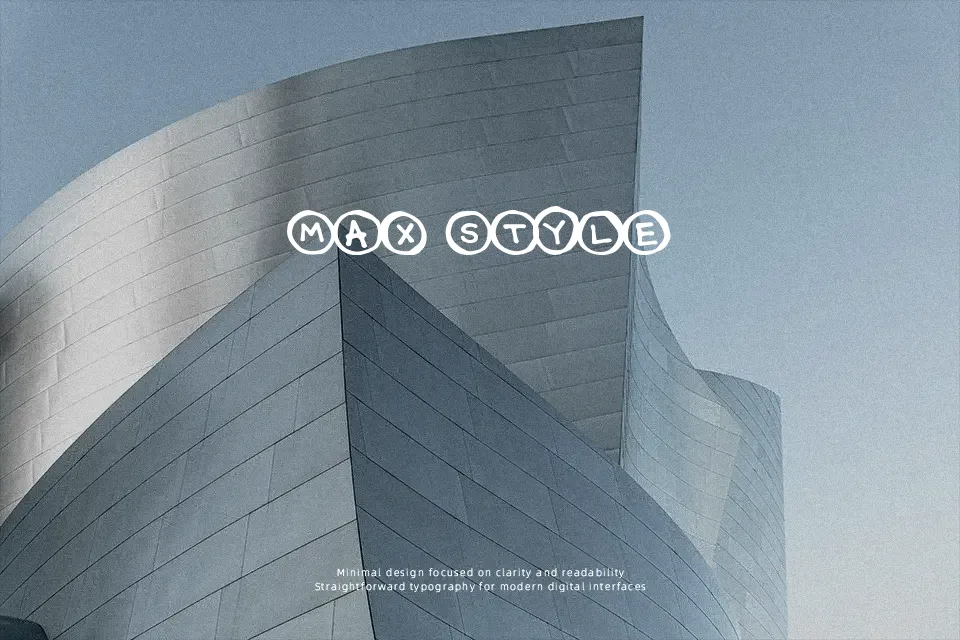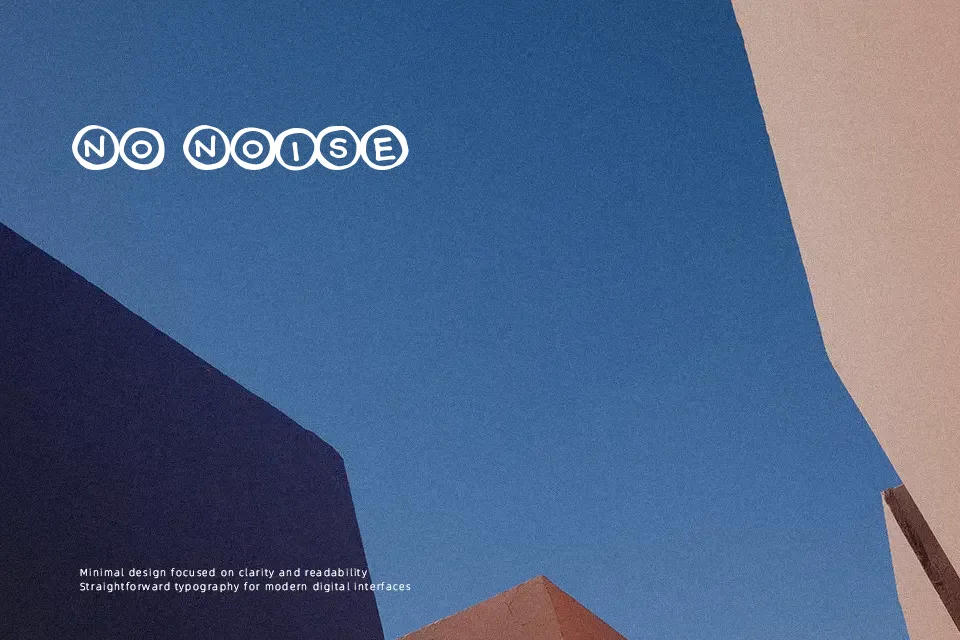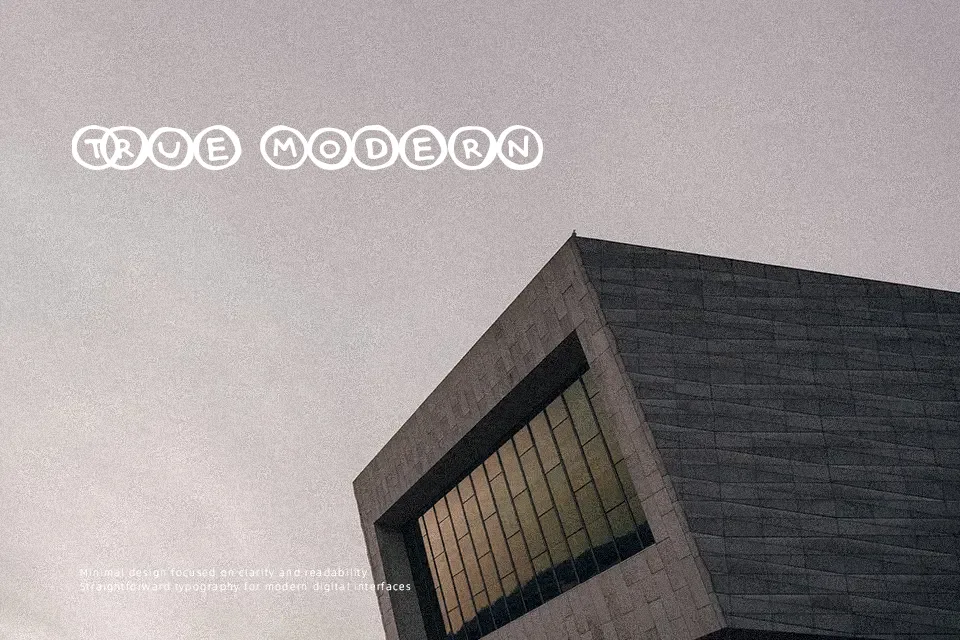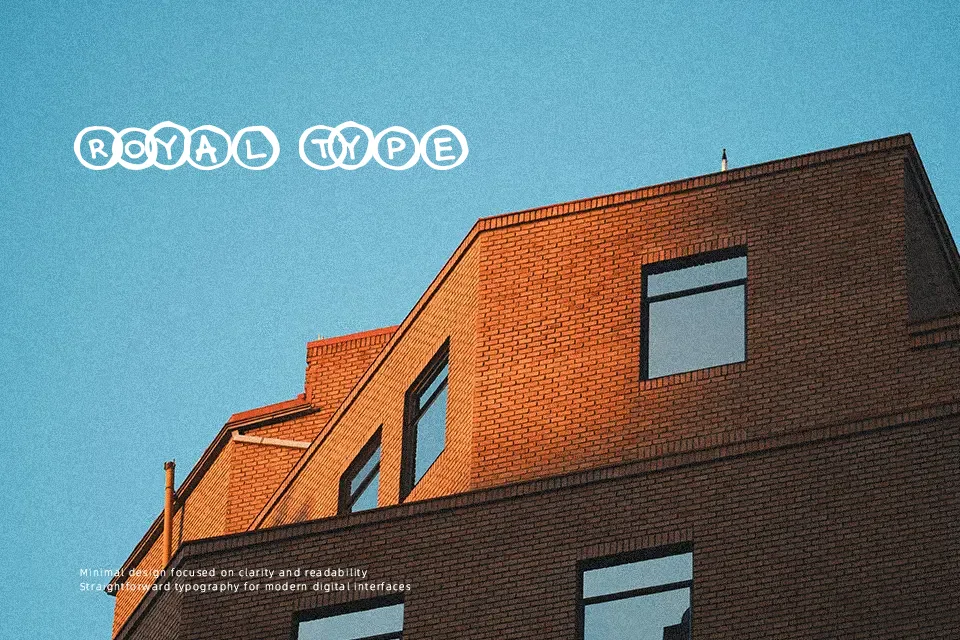
Circle Caps Font
Circle Caps Font presents an all-caps decorative structure where every uppercase letter sits centered within a distinct round border. The inner letterforms feature solid, unbracketed strokes with consistent medium weight and balanced internal proportions, while the surrounding rings establish rigid, uniform character widths across the alphabet. Because the circular frames create wide optical margins between adjacent characters, the spacing naturally favors isolated abbreviations, initial drop caps, and compact headline arrangements. The circular framing provides immediate structural rhythm in poster headers, though the repetitive bounding shapes inevitably hinder reading speed in continuous body paragraphs and multi-line text blocks.
Best For: vintage badge emblems,poster title headers,product packaging badges,apparel crest graphics
Not Ideal For: continuous body text,dense multi-line editorial layouts,mobile user interface copy,small legal disclaimers